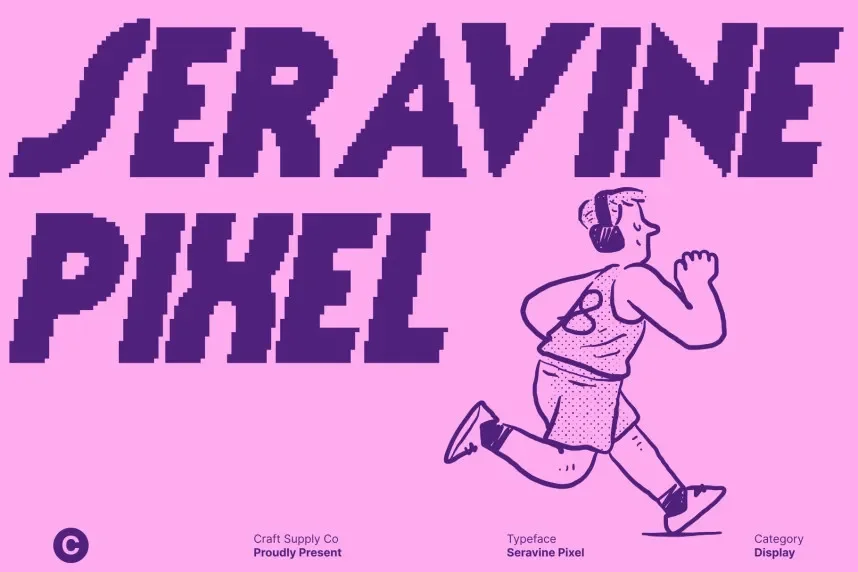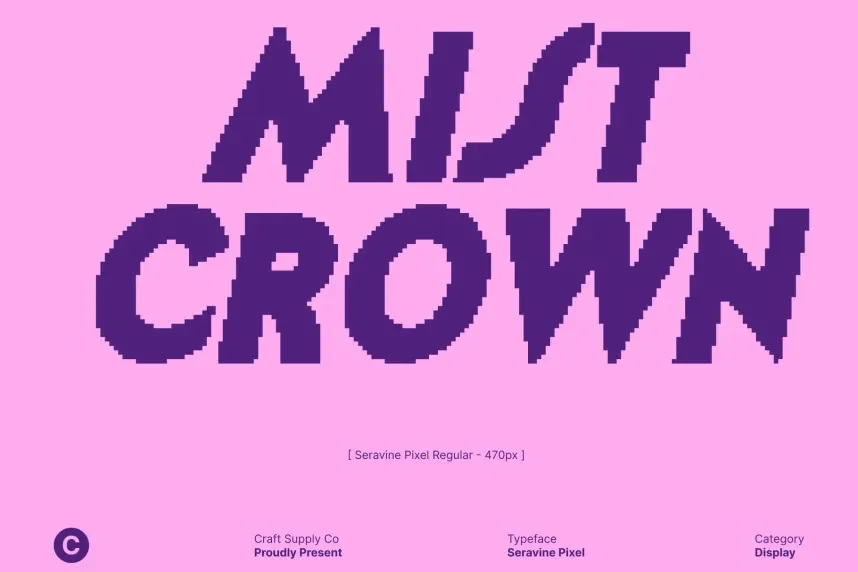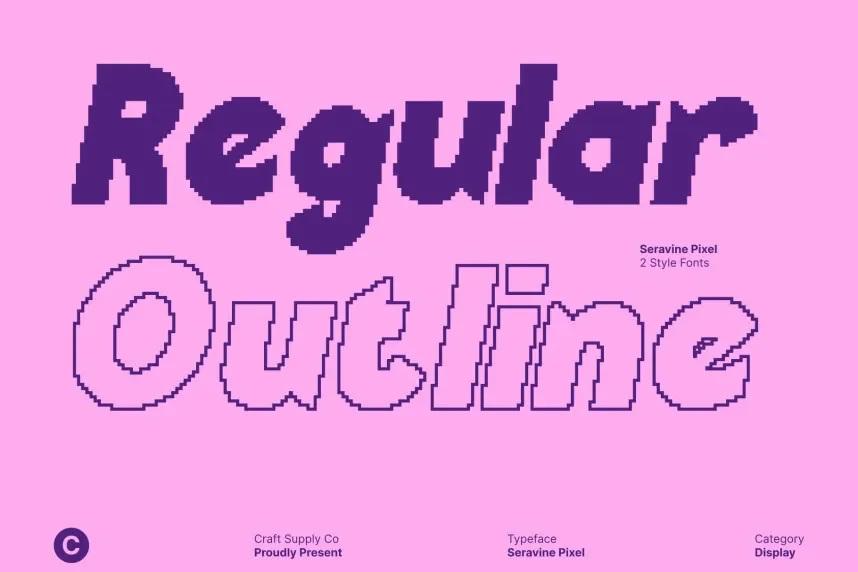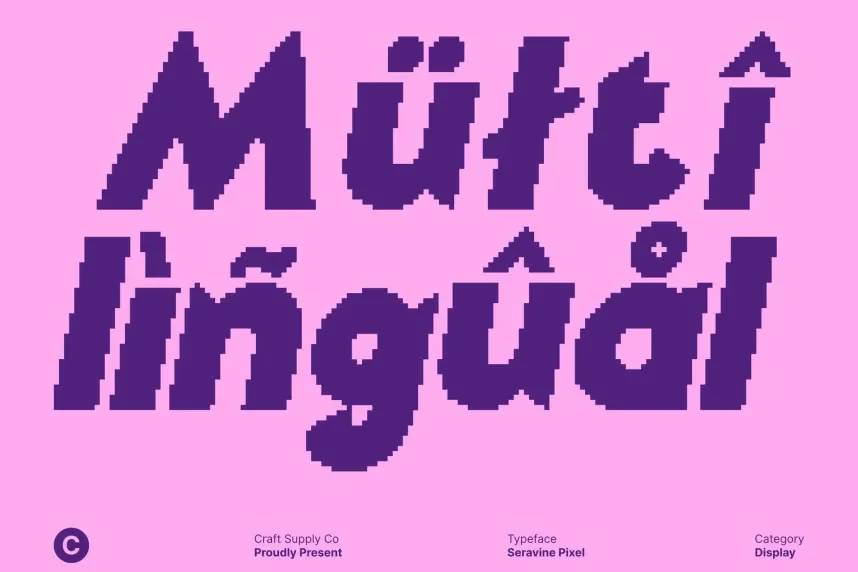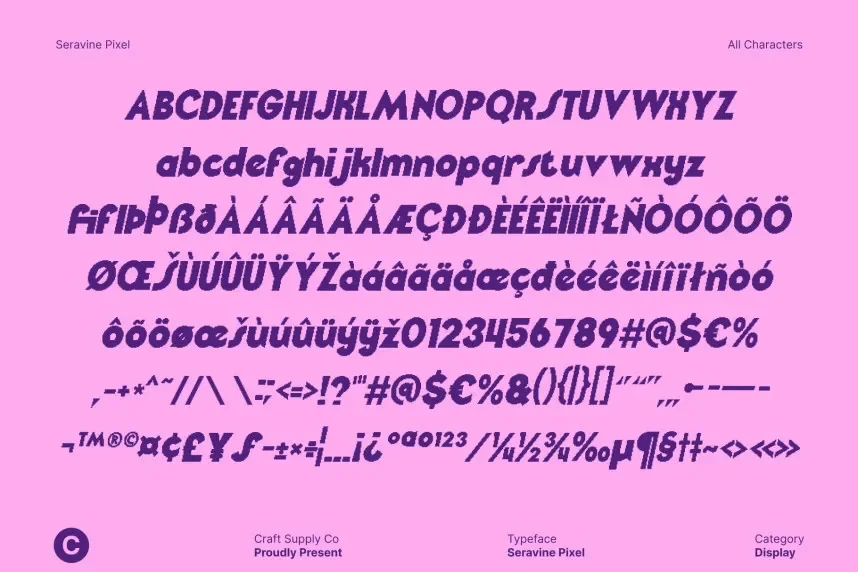
Seravine Pixel Font addresses clarity problems in retro and digital-themed designs. Pixel fonts often become unreadable when spacing or proportions are inconsistent. This font focuses on clean pixel structure for screens and digital interfaces.
Seravine Pixel Font is a pixel display typeface inspired by bitmap and retro UI design. Characters are built on a consistent grid, with uniform stroke width and sharp corners. The font avoids decorative elements, improving legibility at small sizes. It works best in uppercase or short text blocks.